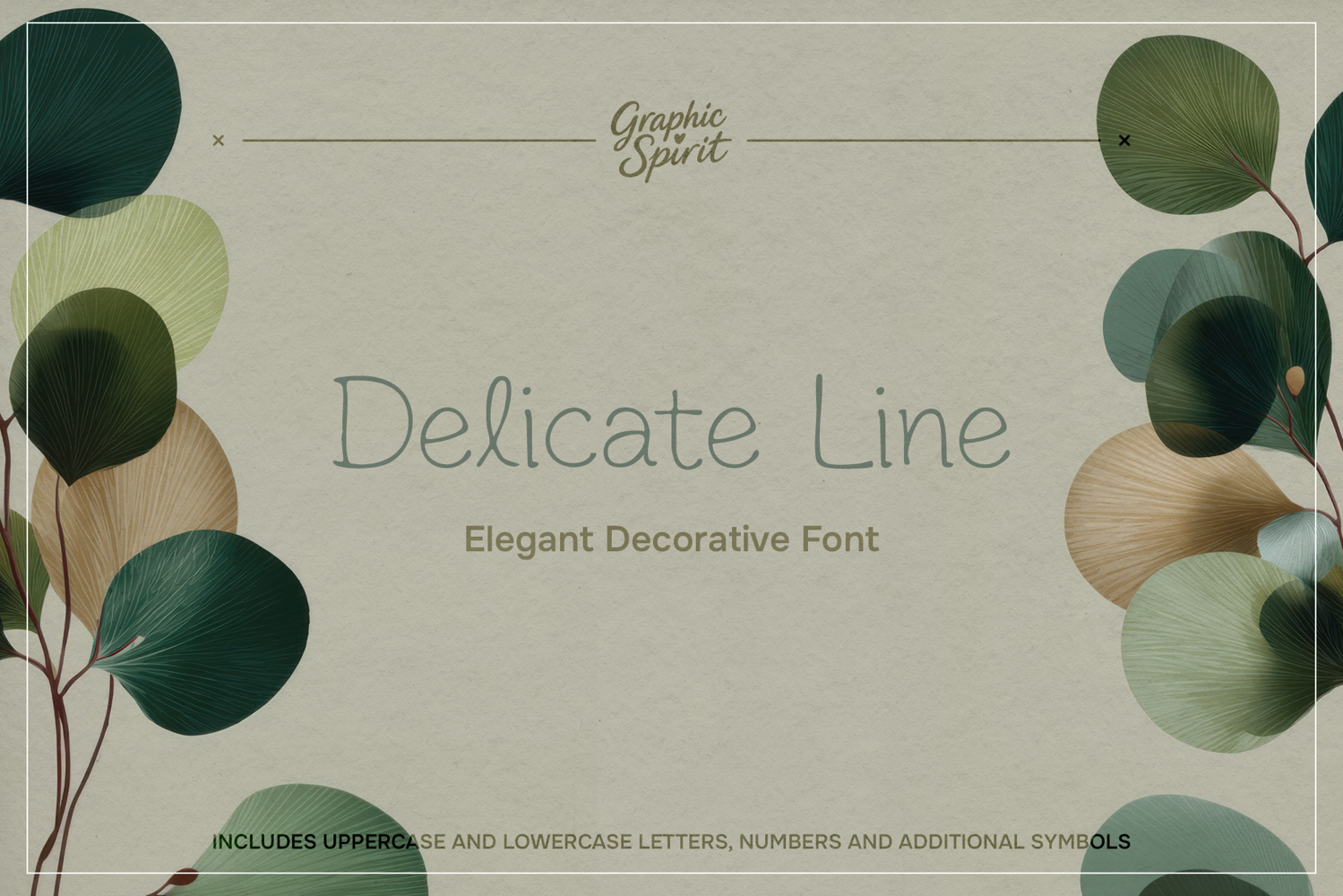
Delicate Line Elegant Decorative Font
✨ Elevate your creative projects with our Delicate Line Elegant decorative font. This digital download offers a beautifully thin, flowing script style perfect for adding a touch of sophistication to your designs. Ideal for wedding invitations, branding, logos, and social media graphics, it brings a timeless and graceful feel to any project.